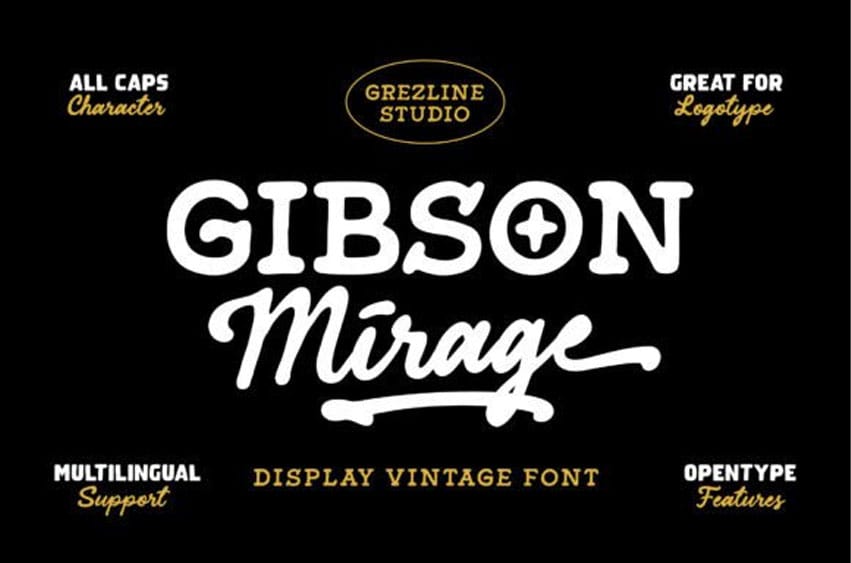
Gibson Mirage Sans Font is a versatile typeface that combines classic elegance with refined craftsmanship, drawing inspiration from the visual language of 20th-century print culture.
Designed with attention to detail and a respect for traditional lettering, it blends slab serif, organic script, and subtly irregular sans elements to evoke the tactile qualities of vintage signage, book covers, and archival materials—reimagined for contemporary design applications.